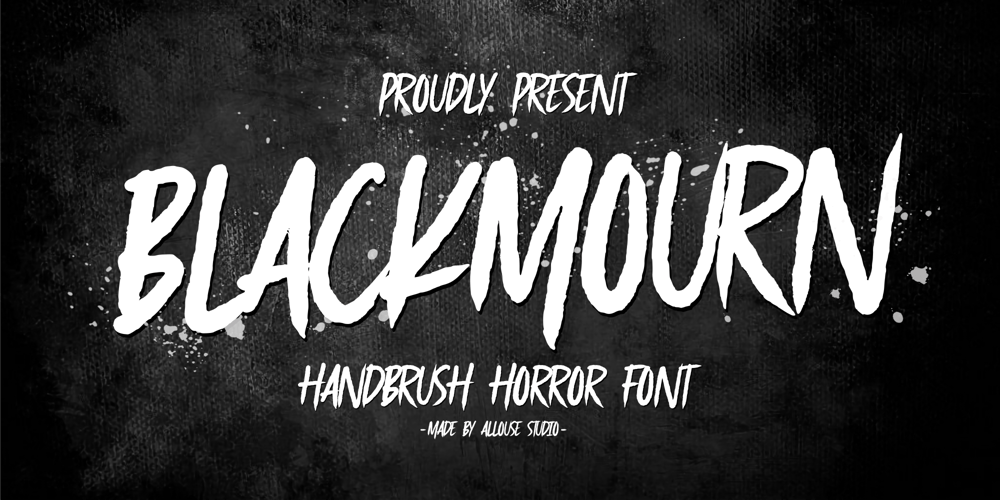
Blackmourn Font Family was designed by Fachrizal Yusuf and published by Allouse Studio. Blackmourn contains 1 styles and family package options. Proudly Presenting, Blackmourn A Handbrush Horror Font.Blackmourn is perfect for any titles, logo, product packaging, branding project, megazine, social media, wedding, or just used to express words above the background.Blackmourn also come with Multi-Lingual Support.Enjoy the font, feel free to comment or feedback, send me PM or email. Thank You!